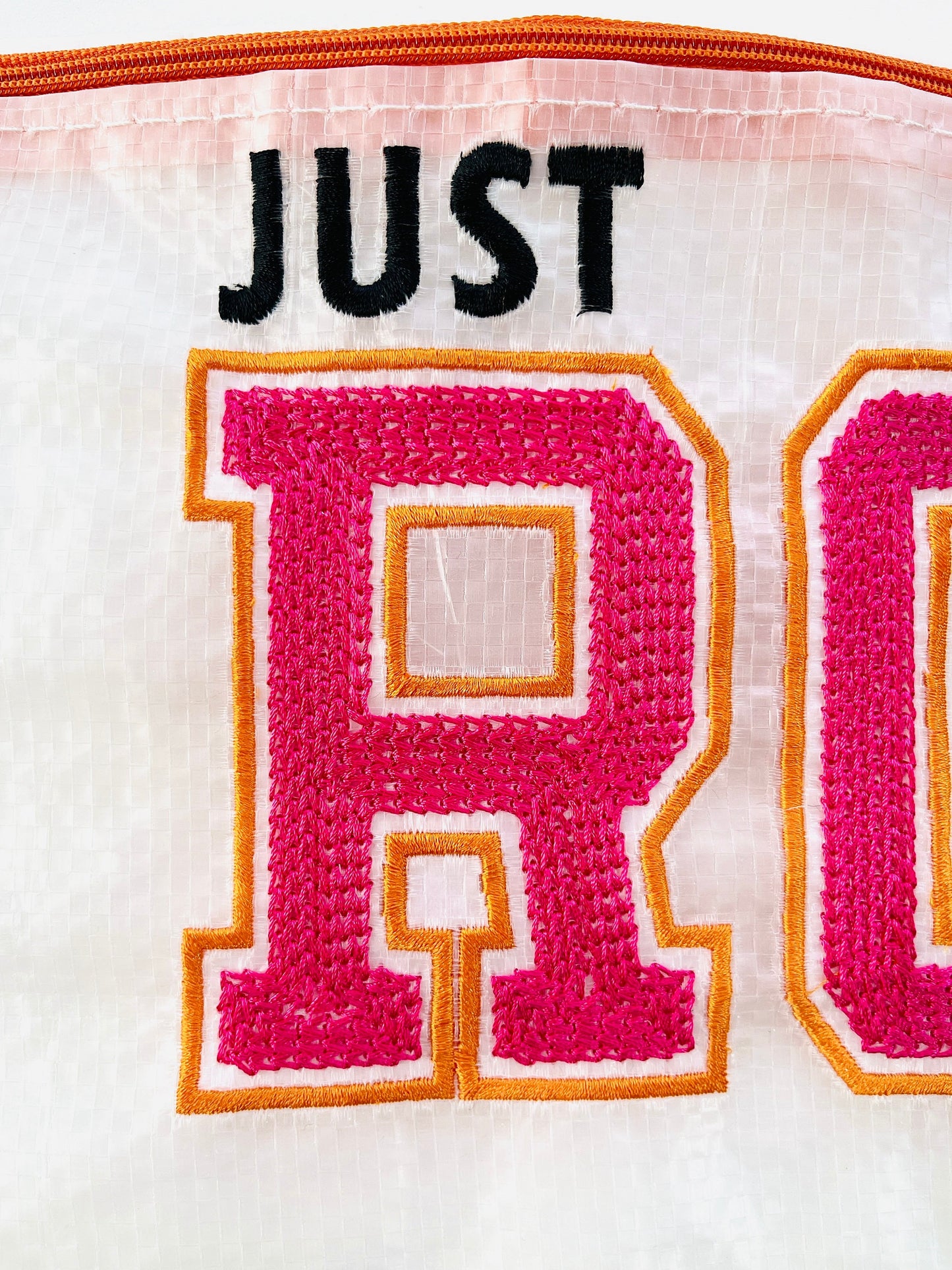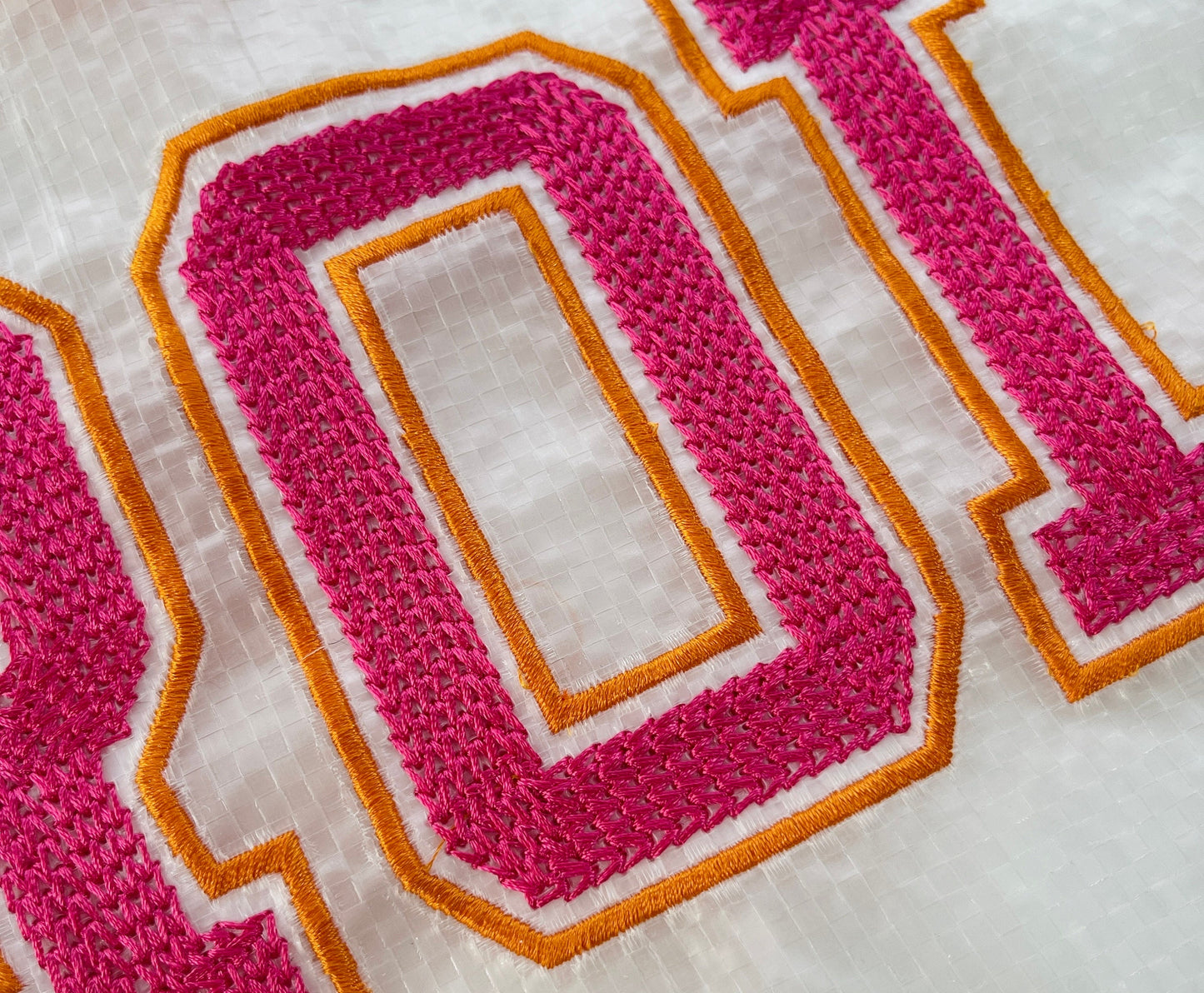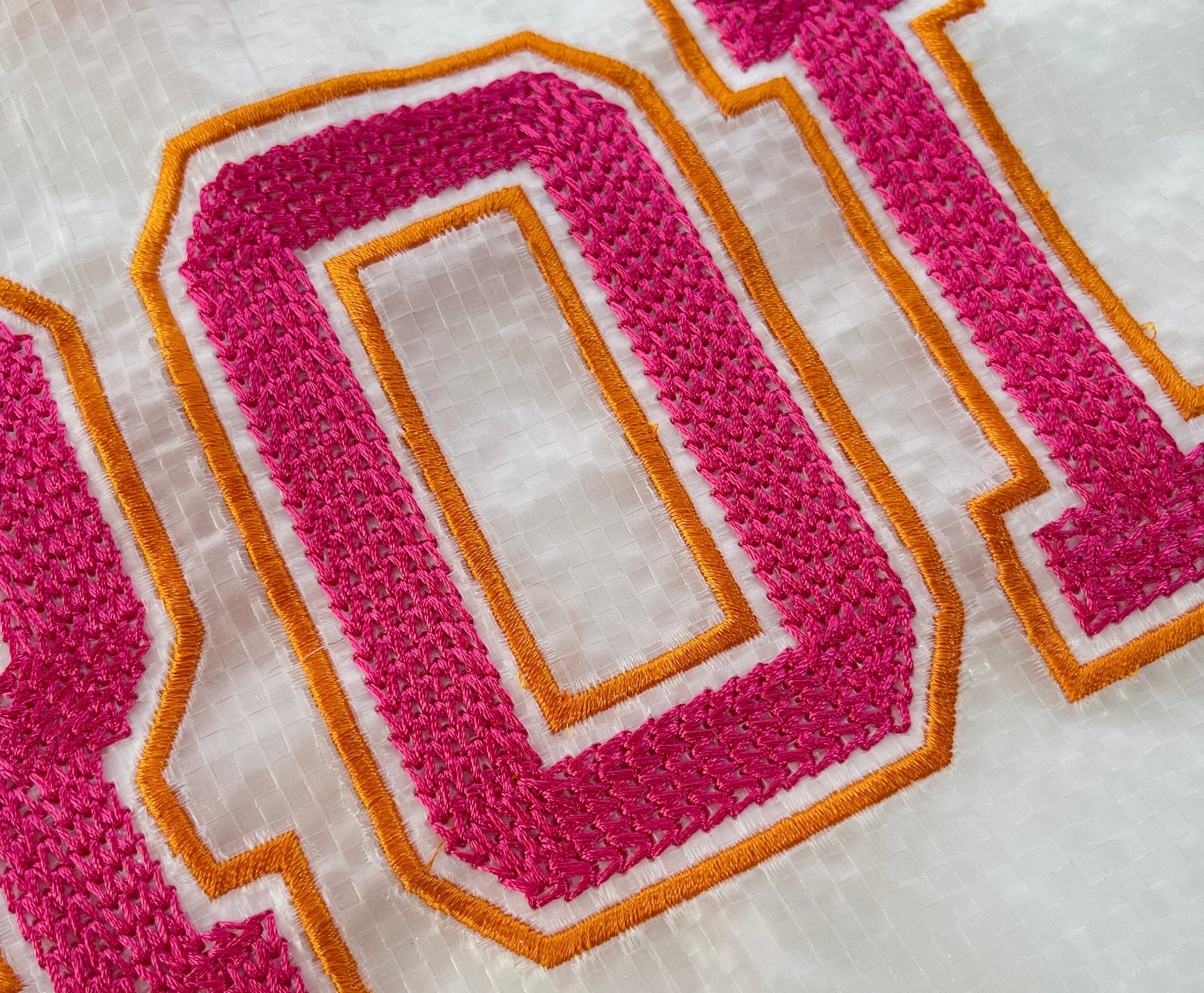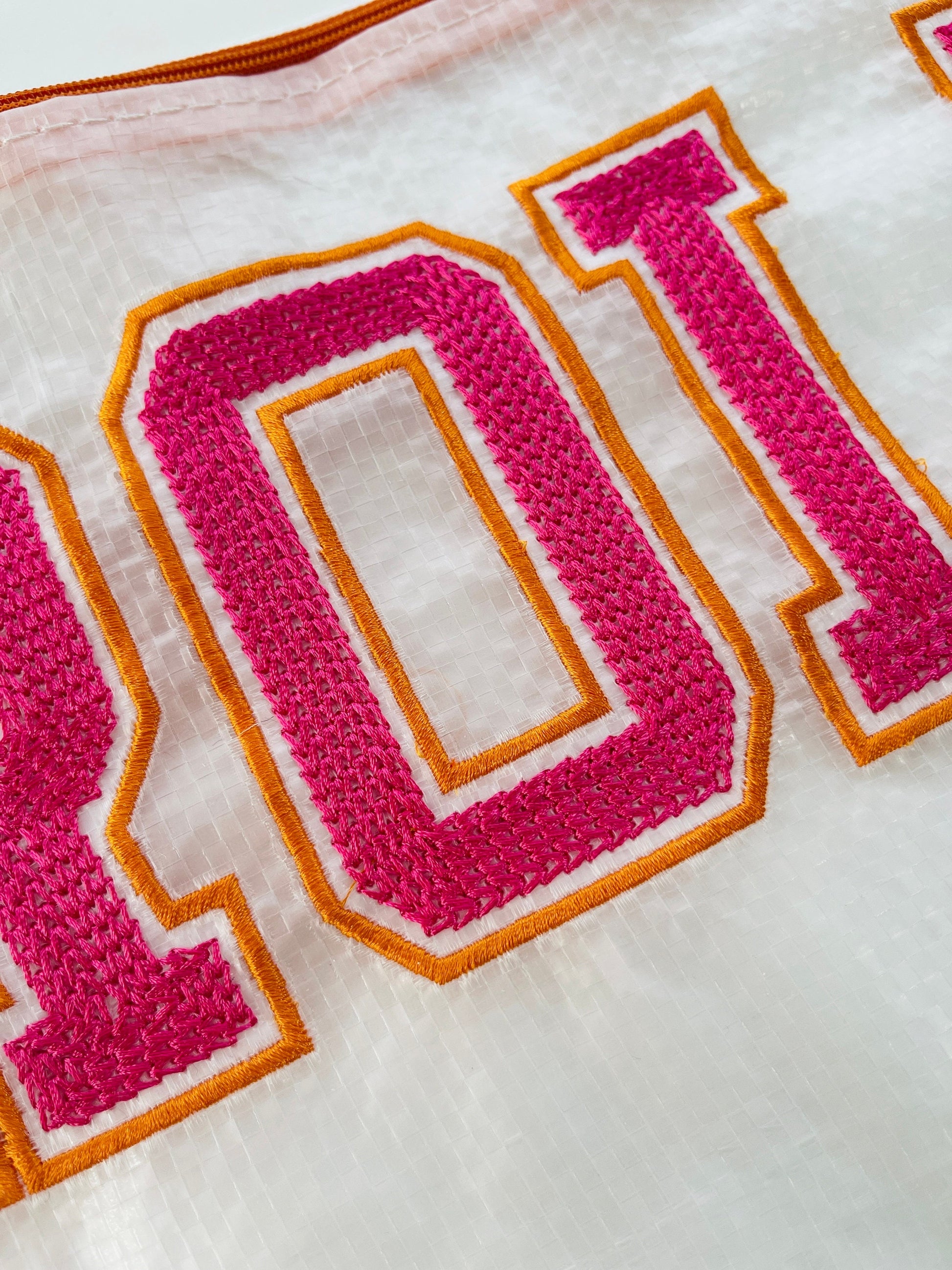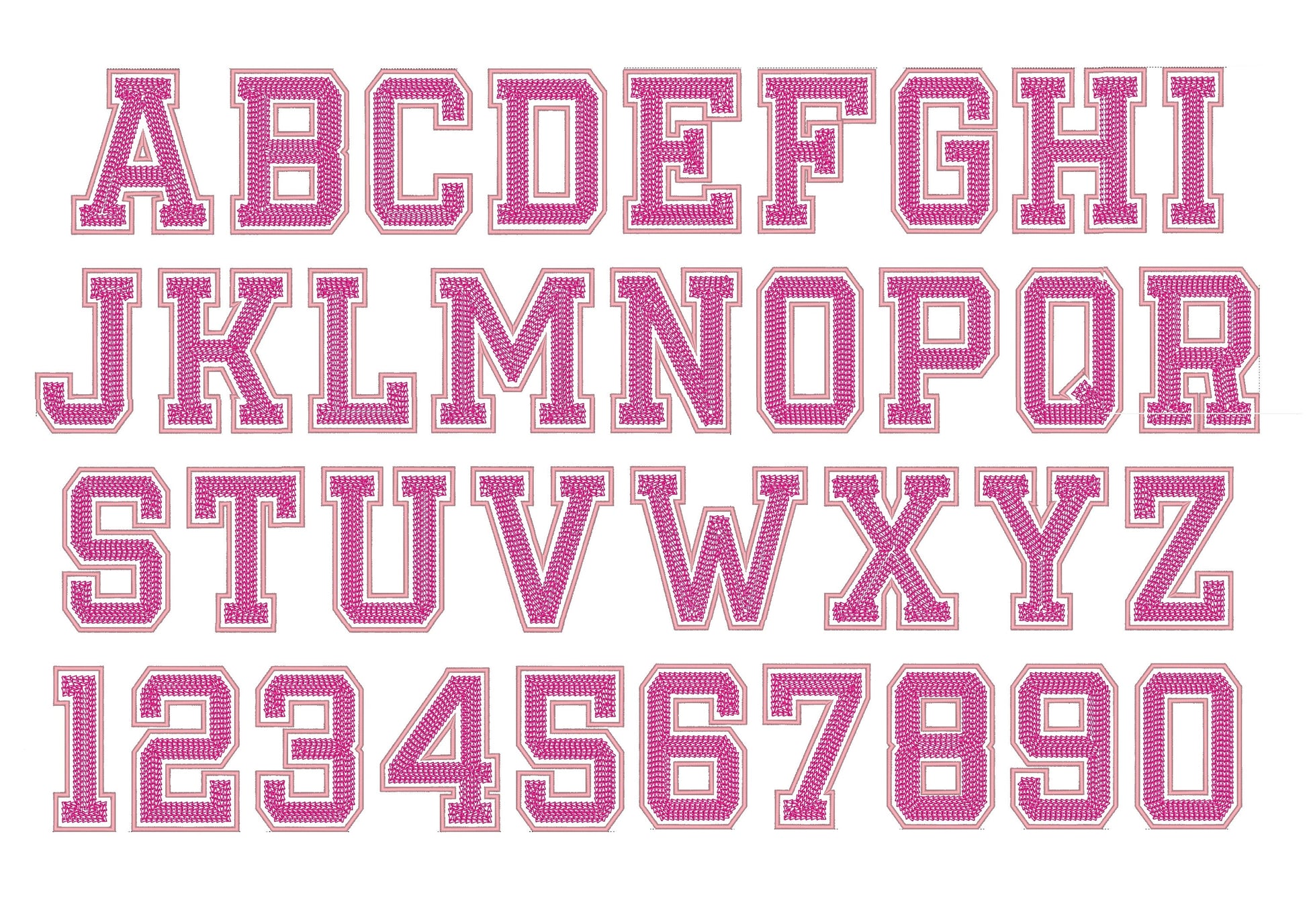
Or click to open the linkA varsity collegiate font outlined in chain stitch, with a chenille-style look. Classic for team shirts, letterman jackets, sweatshirts and bags.
Uppercase letters A to Z and numbers 0 to 9 in seven sizes: 3, 3.5, 4, 4.5, 5, 5.5 and 6 inches. Each letter is an outline in chain stitch.